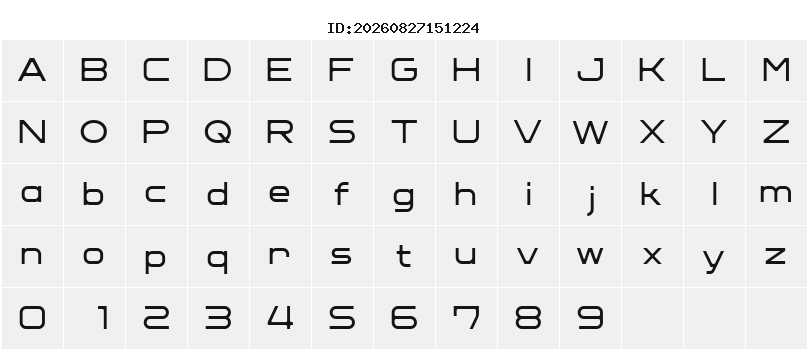
About 096MKSD.ttf
096MKSD.ttf is a modern, elegant sans-serif font designed for ultimate readability and visual harmony. Perfect for branding, headlines, web design, and print materials.